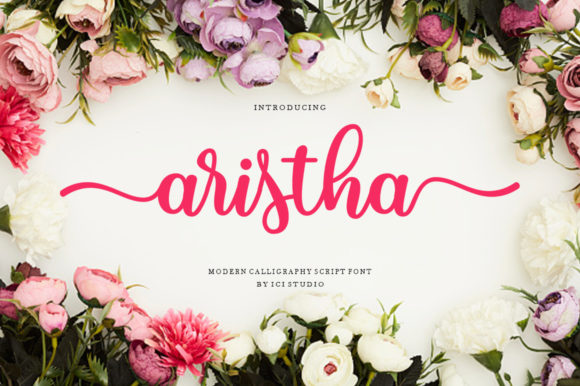
About Aristha Font
Aristha is a romantic and sweet calligraphy typeface with characters that dance along the baseline. It will add a luxury spark to any design project that you wish to create! This font is PUA encoded which means you can access all of the amazing glyphs and ligatures with ease!